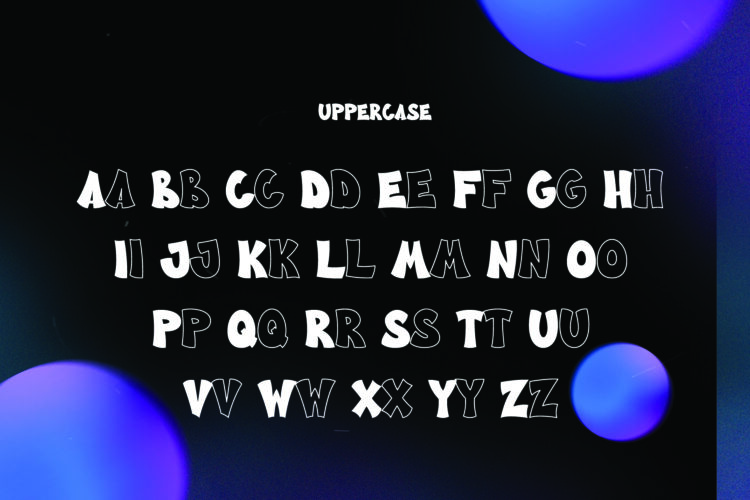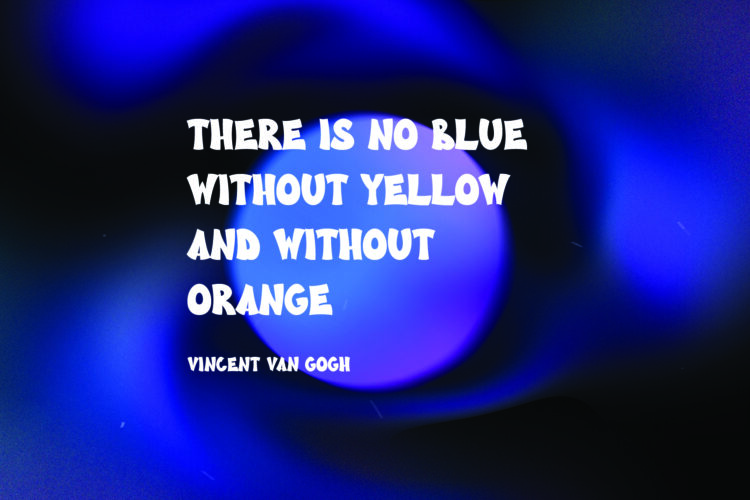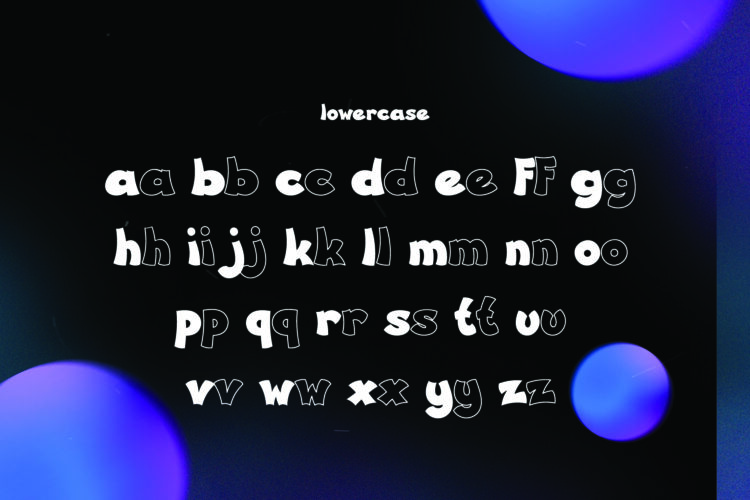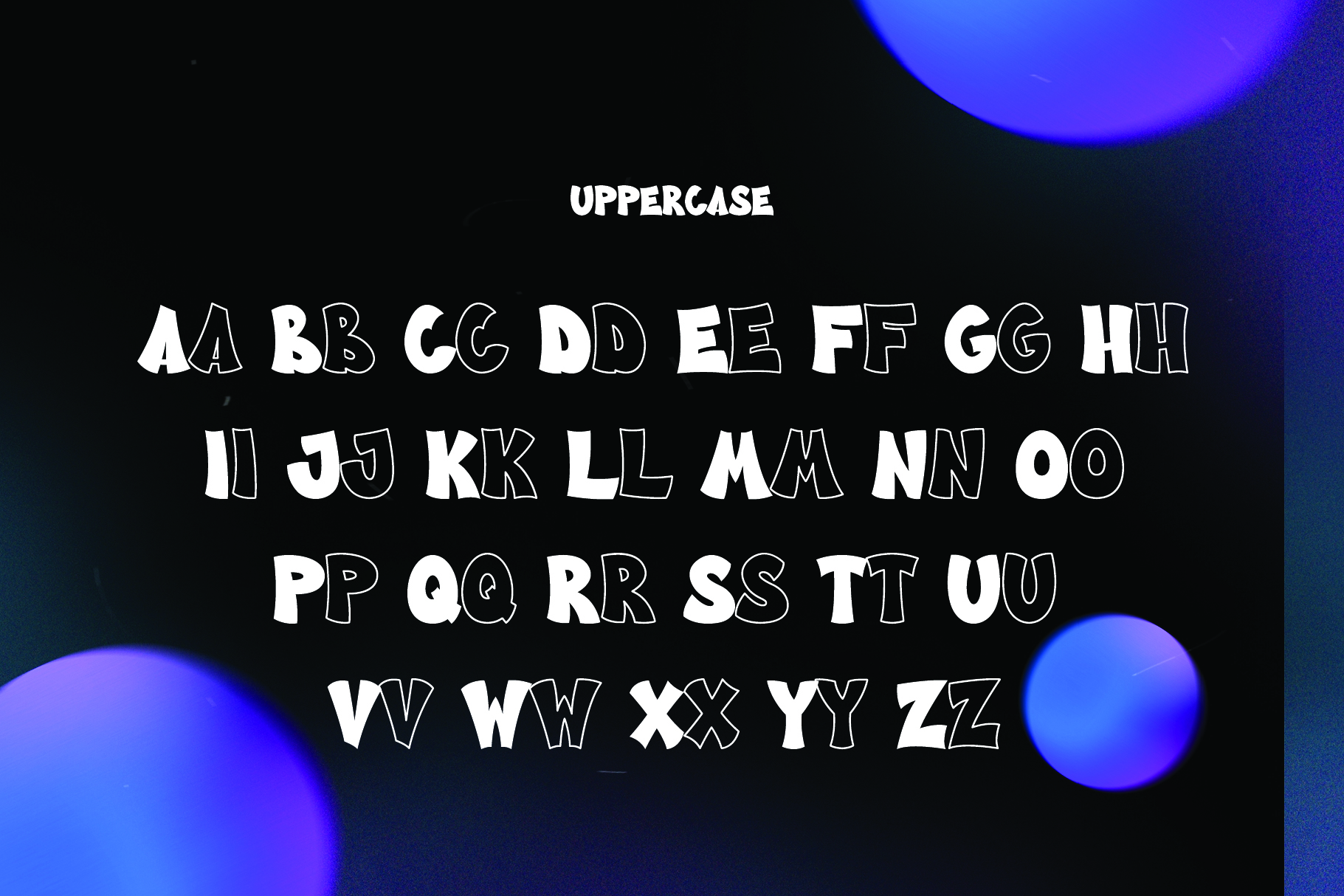
Introducing Counter — a playful yet bold bubble font built for creative projects. It features thick, large letters with sharp edges that add character to your work. Whether you’re designing children’s books, toy packaging, baby clothing, posters, or inspirational quotes, Counter will bring your ideas to life with style.
Counter includes a full set of uppercase and lowercase letters, numbers, and punctuation. You’ll receive the font in TTF, OTF, and WOFF formats, so it works in all your design software. It’s ready to help your message hit loud and clear.